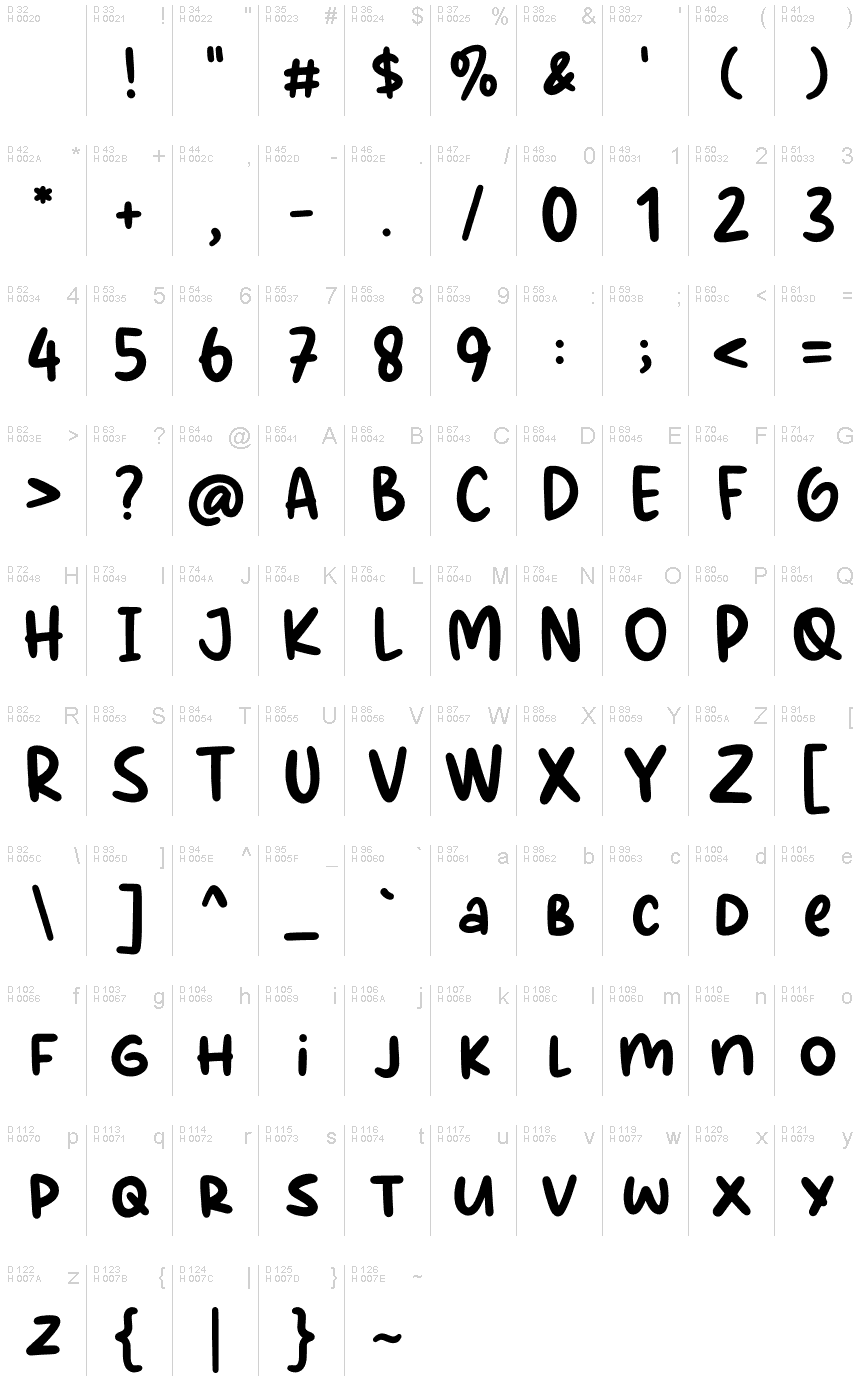
Kreasi Literasi Demo
Kreasi Literasi, a playful handwritten font designed by Allouse.Studio, is perfect for projects requiring a bold, creative touch. This font is ideal for things like logos, branding projects, greeting cards, stationery and more!